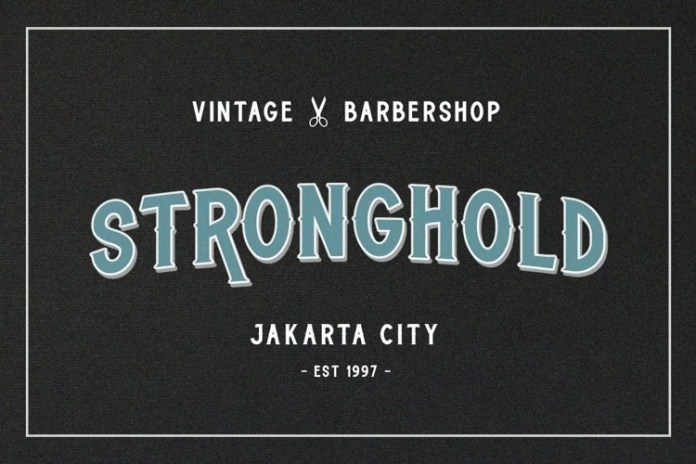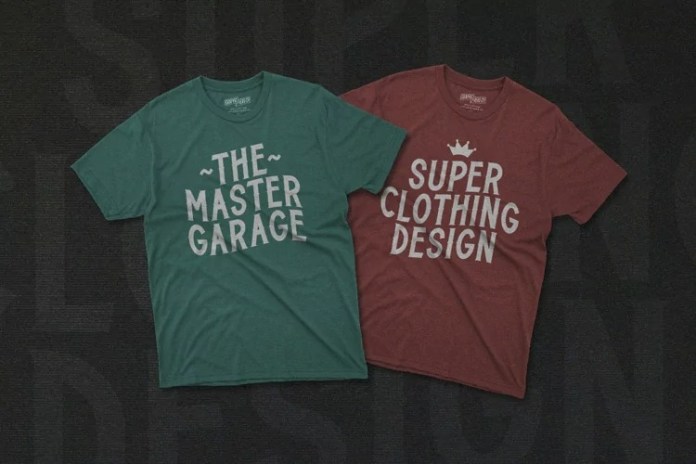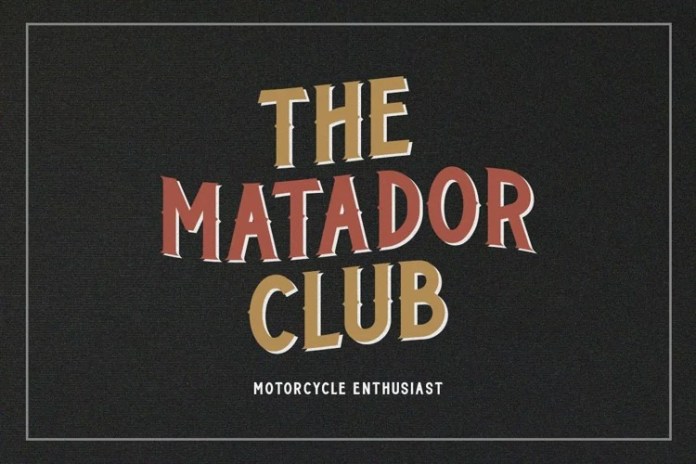
Rotterham Display 字体介绍
This font is a character font, vintage, and all uppercase, bold. This typeface has can be used for vintage theme or retro looks with ligatures & alternates. Very suitable for logotype, headline, tittle, and the other various formal forms such as invitations, emblems, logos, magazines, books, packaging, clothing, t-shirt, and labels.